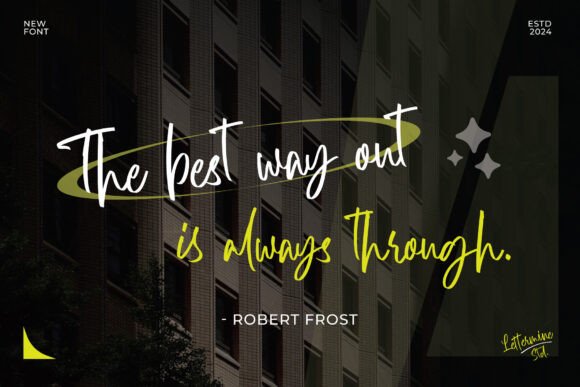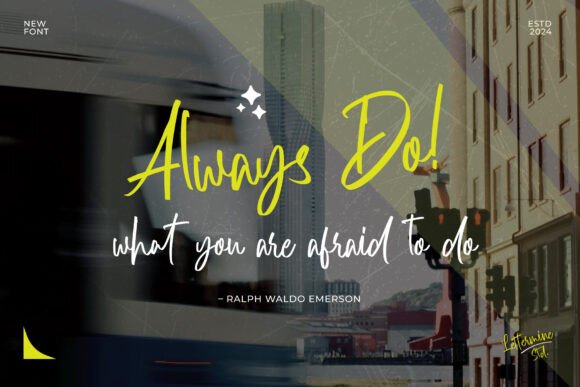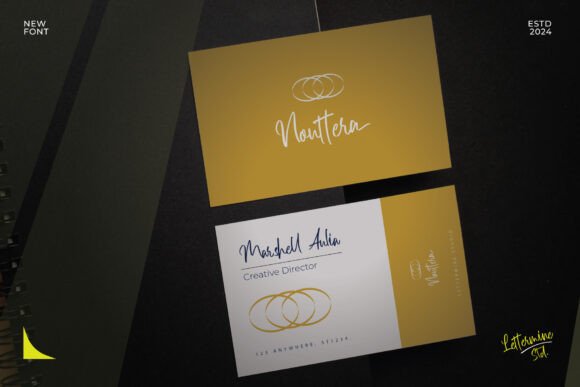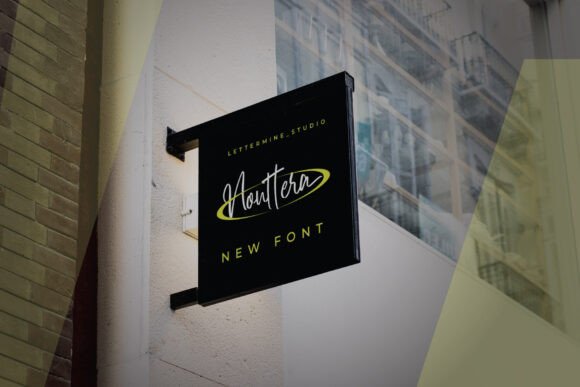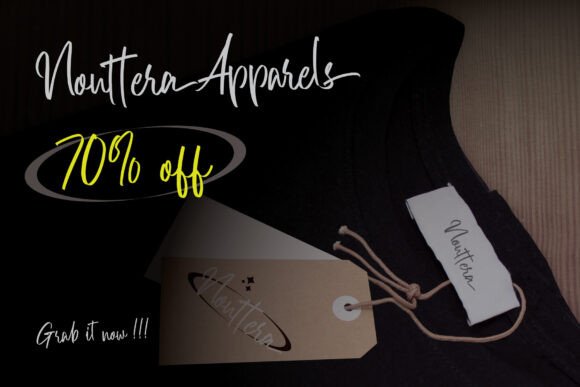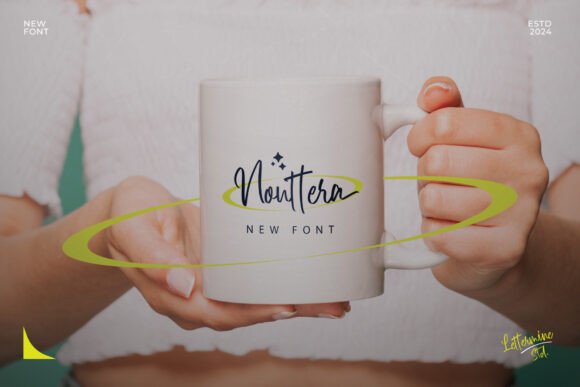
Introduction to Nouttera Font
Have you ever been working on a creative project, pouring your heart and soul into it, only to realize that the perfect font can make all the difference? For designers, finding the right font can be a game-changer. It’s like adding the final brushstroke to a masterpiece – it brings everything together and leaves a lasting impression.
That’s where the Nouttera Font comes in – a captivating brush script handwritten font that exudes creativity and passion in every stroke. Its bold yet graceful curves create an engaging and expressive atmosphere, perfect for designers looking to add a personal touch to their designs.
Key Features of Nouttera Font
- High-quality design resource suitable for various creative projects, including digital art and graphic design.
- Designed to provide clear readability and versatility in a range of font sizes, from 8pt to 48pt.
Honest Review: Nouttera Font
As a designer, I’m always on the lookout for high-quality design resources to enhance my creative projects. Recently, I stumbled upon the Nouttera Font, and I must say, it’s a great addition to my collection.
What works well: ✨ The Nouttera Font is incredibly versatile, making it perfect for a wide range of design applications, from typography-heavy projects to more subtle uses. The font’s sleek and modern design is sure to elevate any creative project.
Limitations: ⚠️ While the Nouttera Font is a great design resource, I do wish it came in more weights and styles. Currently, it’s only available in a single weight, which may limit its use in certain design contexts.
Overall, I’m impressed with the Nouttera Font, and I’m happy to have it in my design arsenal. With its high-quality design and transparent background, it’s a great choice for designers looking to add some visual interest to their creative projects.
- Modern and sleek design
The Nouttera Font is suitable for a wide range of creative projects, including graphic design, digital art, presentations, and written content. Its high-quality design and transparent background make it an ideal choice for designers and artists who want to create professional-looking designs.